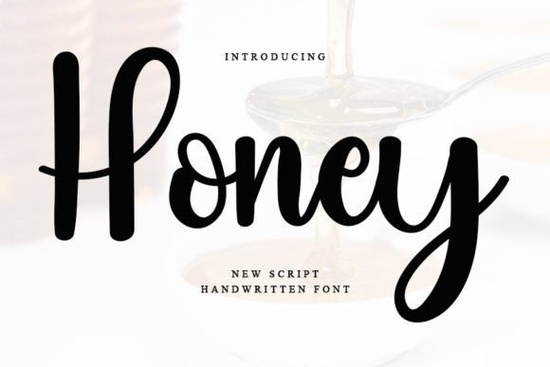
If you need a typeface that feels personal but still reads clearly on small screens, Honey Font delivers exactly that balance. It is a handwritten script with a relaxed flow and just enough structure to keep letters legible at various sizes. Designers, crafters, and print-on-demand sellers often choose this style when they want a warm, approachable look without sacrificing professionalism. Whether you are laying out Instagram quotes, designing wedding invitations, or creating labels for handmade goods, the natural stroke variation gives your work a finished feel without extra editing.
What makes this handwritten style work for everyday projects?
Handwritten typefaces can quickly become difficult to read when the loops are too tight or the slant is inconsistent. This script avoids those common pitfalls by keeping character spacing open and maintaining a steady baseline. The result is a font that feels hand-drawn but behaves predictably in design software. You will notice a few practical details that help during production:
- Clear distinction between similar letters like lowercase a, o, and e
- Smooth connecting strokes that do not break when scaled down for product tags
- Light elegance that pairs well with both pastel palettes and bold contrasting backgrounds
- Ready-to-use formatting for social graphics, digital planners, and craft templates
These small adjustments matter when you are exporting files for print or uploading mockups to a marketplace. Consistent spacing means fewer manual kerning tweaks, which saves time during busy production weeks.
Which design tasks fit this script best?
Not every project needs a decorative typeface, but certain formats benefit from a personal touch. This style works particularly well for short headlines, branding accents, and packaging labels where readability and personality need to coexist. If you are building a shop banner or designing sticker sheets, the flowing letters add warmth without overwhelming the layout. When you want to explore other moods, you might browse a playful rounded script for children’s products or test a clean typewriter style for vintage-inspired packaging. For creators who regularly switch between casual and refined looks, keeping a curated collection of handwritten typefaces on hand makes it easier to match the right tone to each client request.
How do I pair it with other typefaces without cluttering the layout?
Script fonts perform best when they carry the visual weight of a single line or short phrase. Let this font handle the main title or signature element, then support it with a simple sans serif or a neutral serif for body text. Avoid stacking multiple decorative styles on the same canvas, as competing curves will make the design feel busy. If you need a contrasting accent for subheadings, a soft duo set with a clean companion can provide structure while keeping the overall mood light. For streetwear graphics or modern poster layouts, you might experiment with a bold display alternative to create intentional contrast. The goal is to give the eye a clear path: script for personality, straightforward type for information.